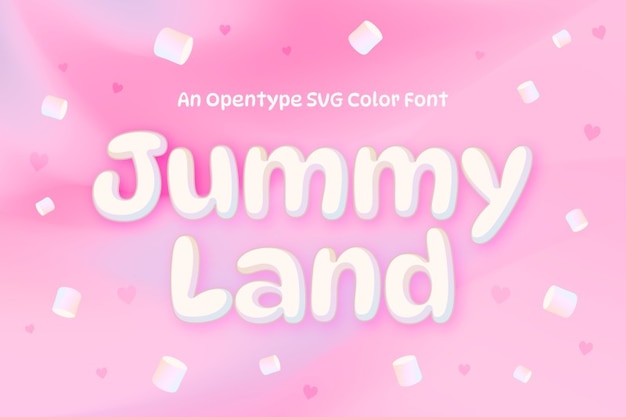
Jummyland
Jummyland Font
Jummyland is a font straight from the sugary dreams of a candy enthusiast. Decorative, sweet, and irresistibly cute, each letter resembles a fluffy marshmallow. The rounded edges and playful curves create a whimsical atmosphere, as if your words are floating in a land of confectionery delight. It's a typographic treat that turns any text into a visual feast. With Jummyland, your designs will be as delightful as a bag of marshmallows, adding a sprinkle of sweetness to every project. Get ready to embark on a typographic journey into a world of sugary charm with Jummyland!